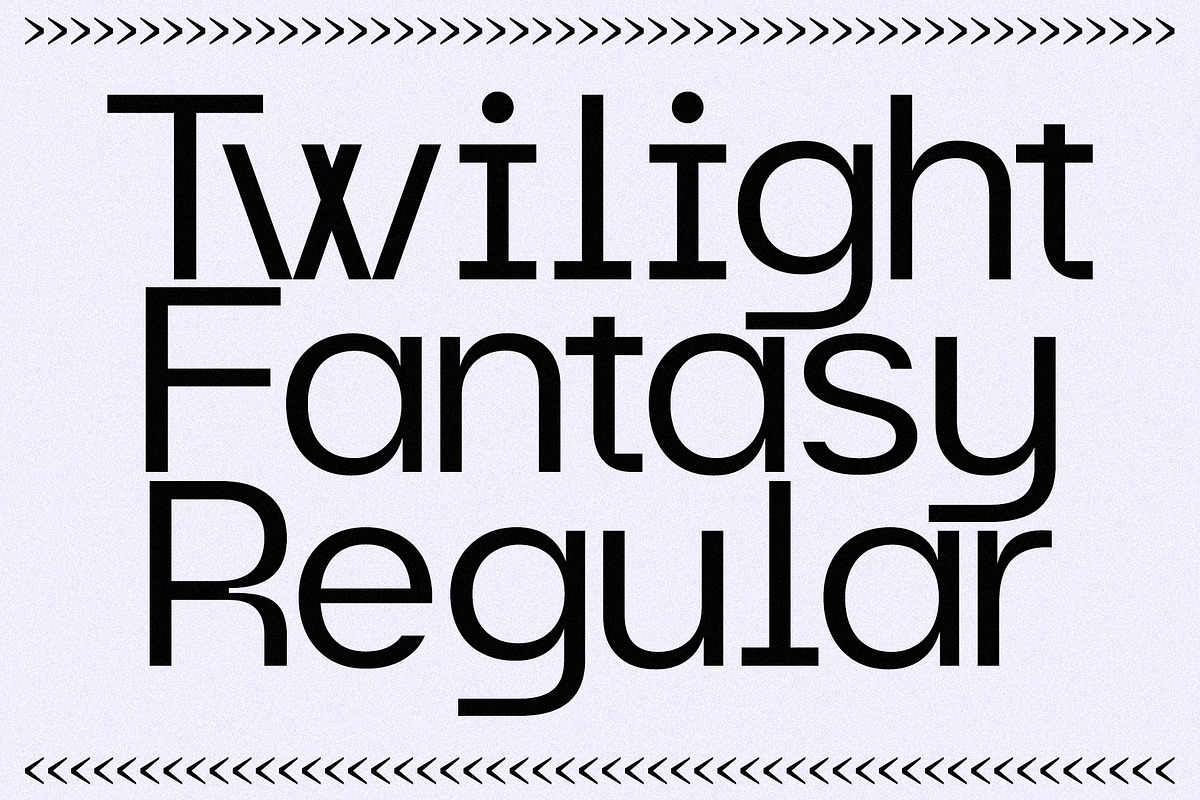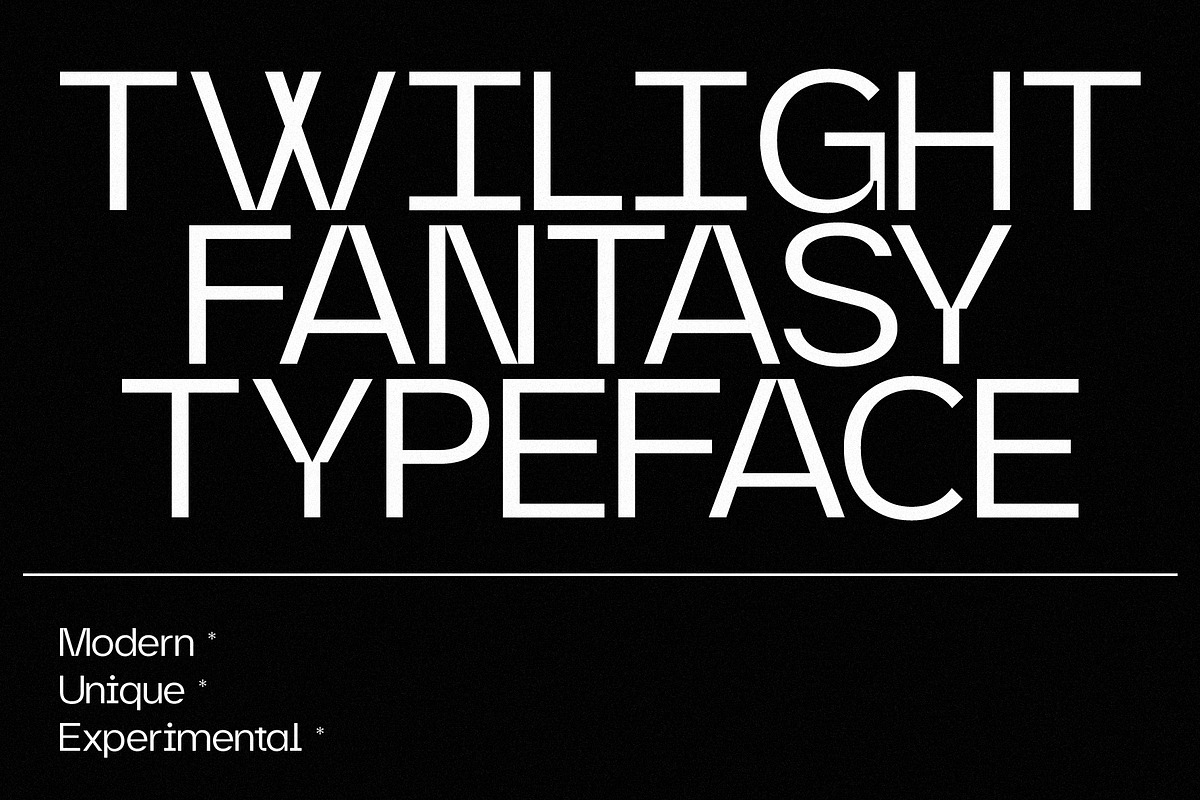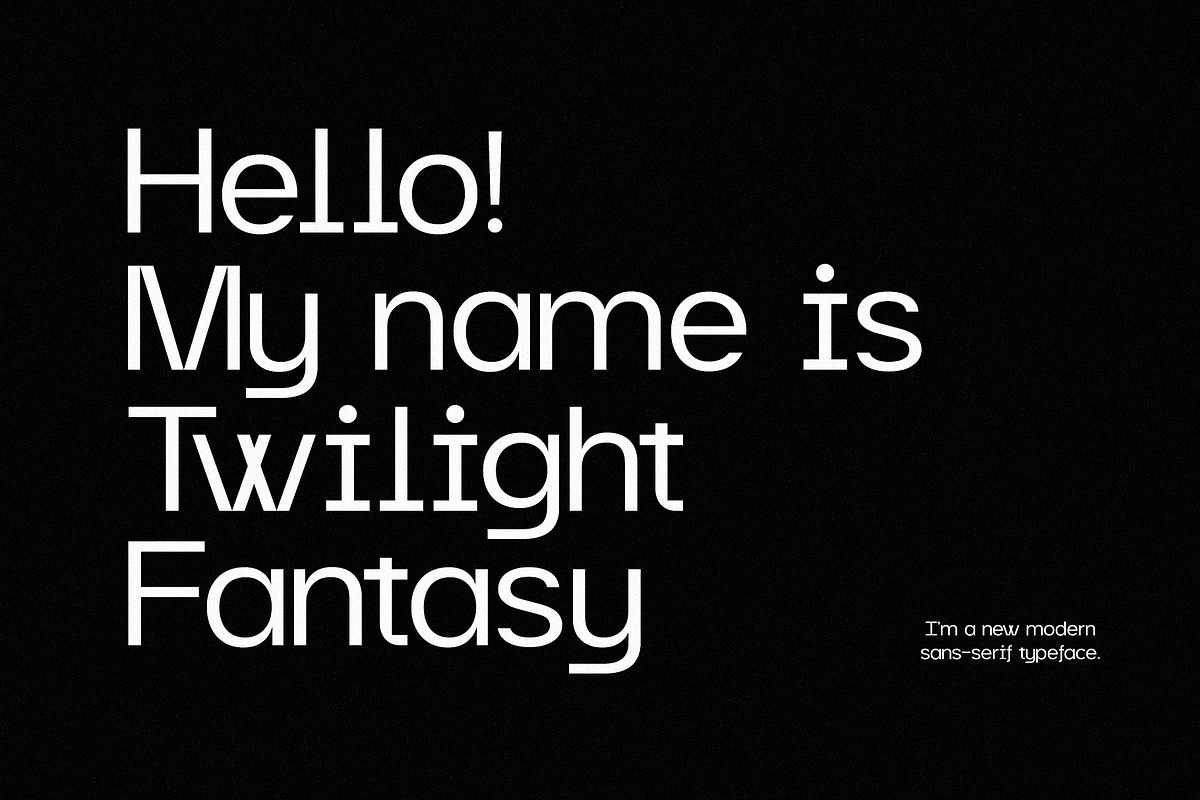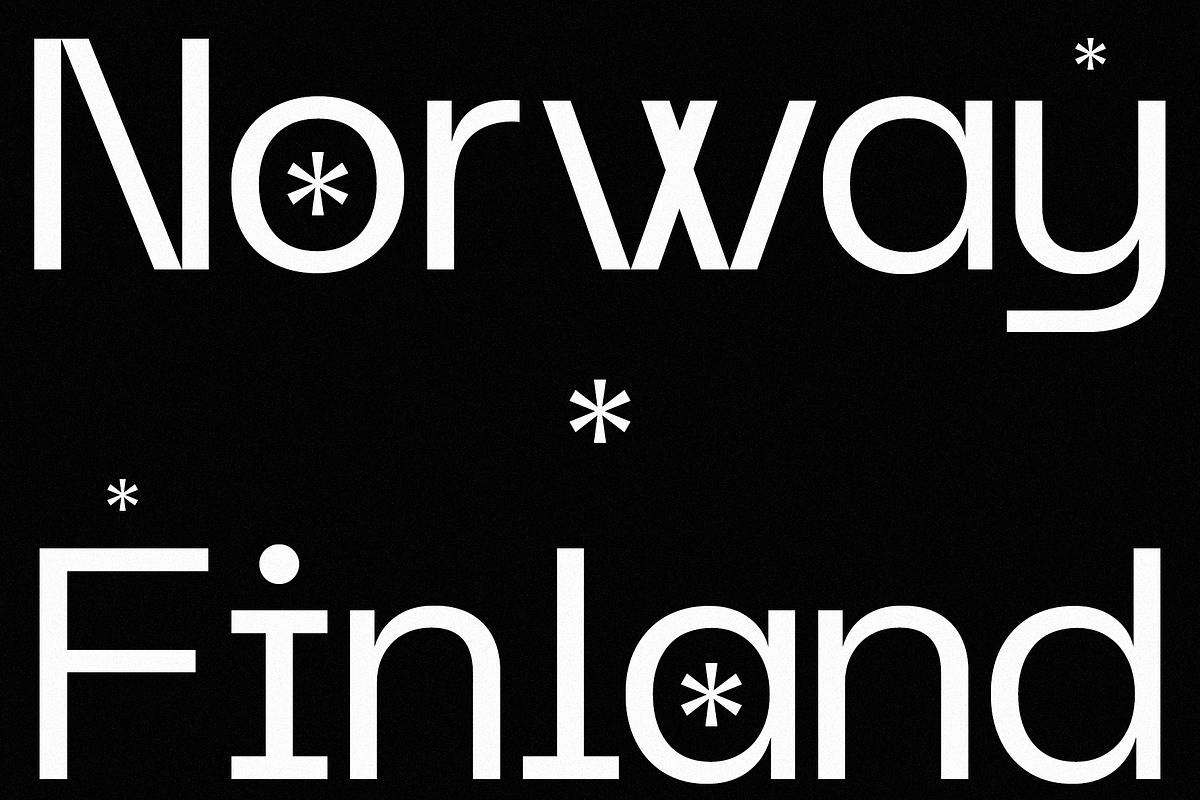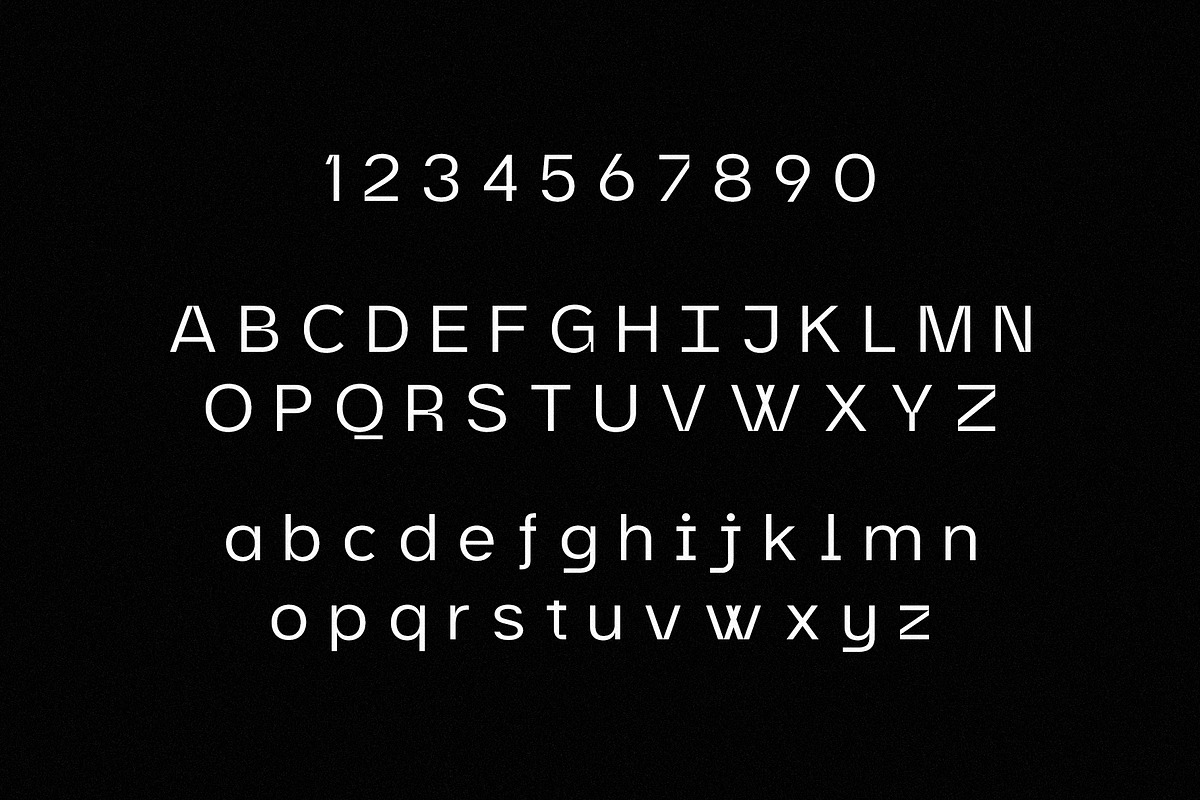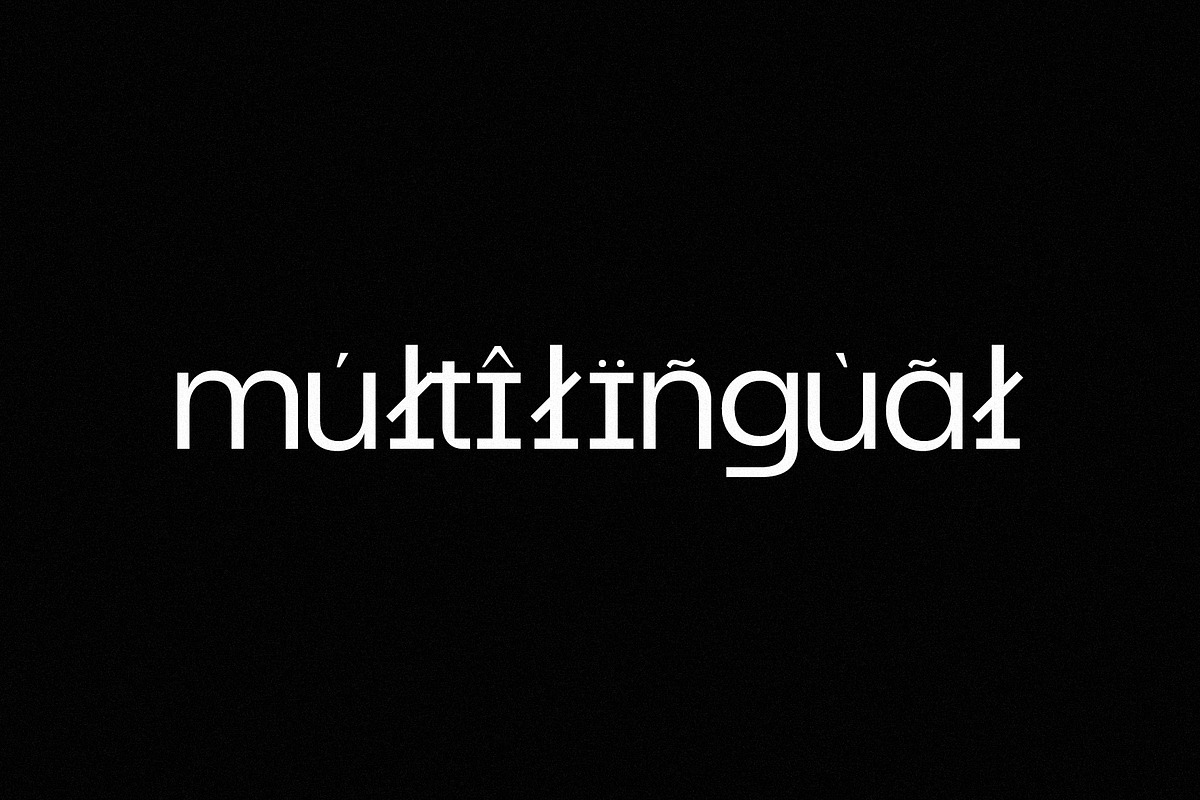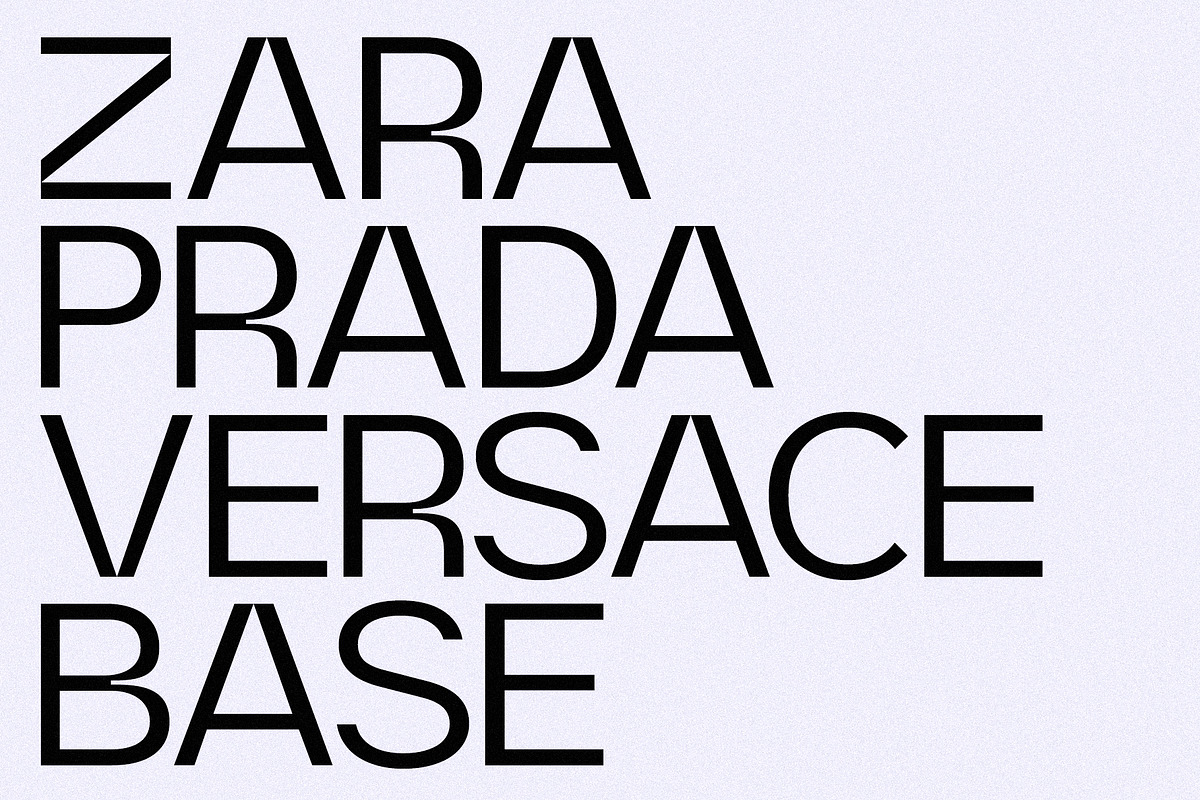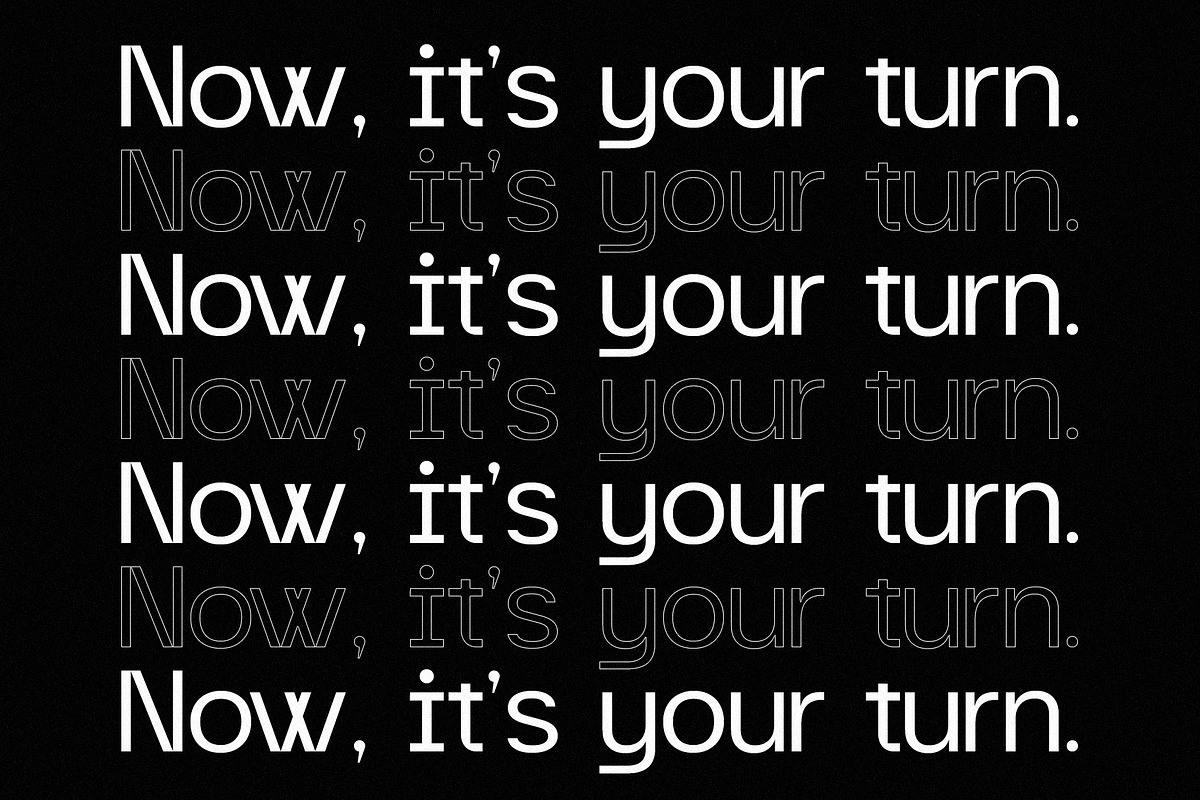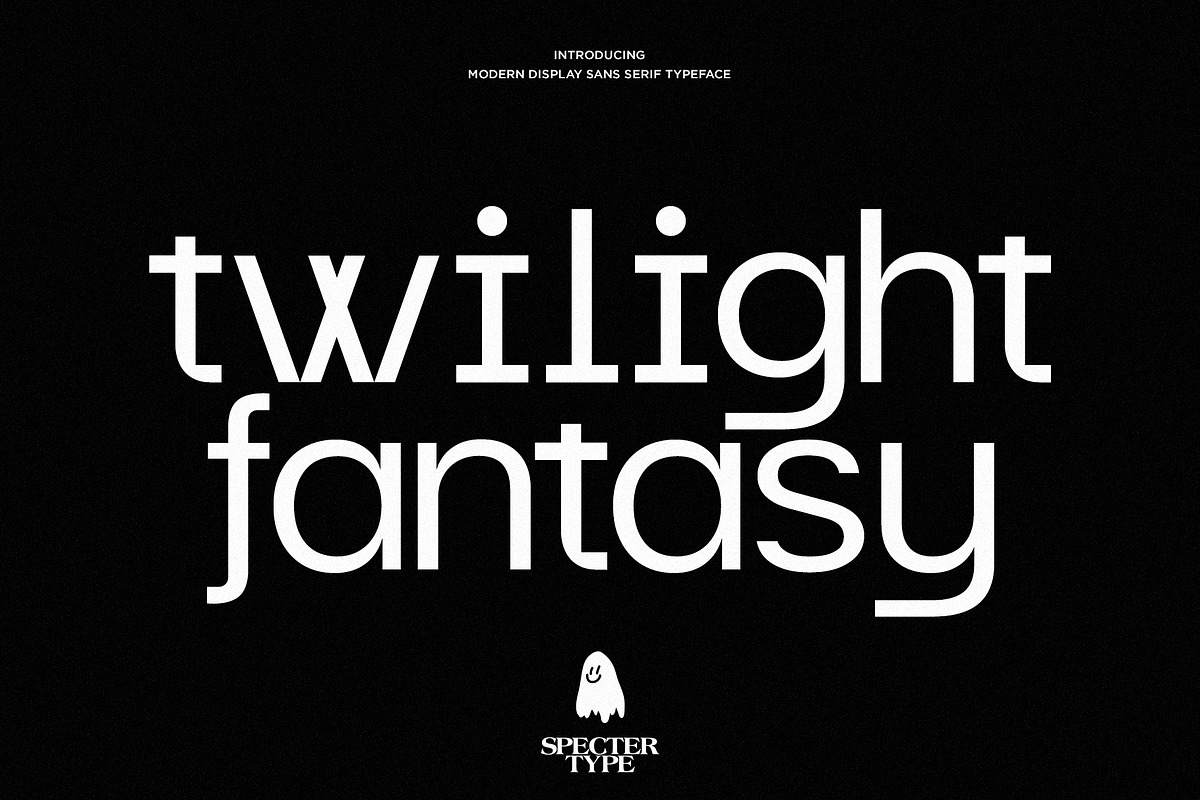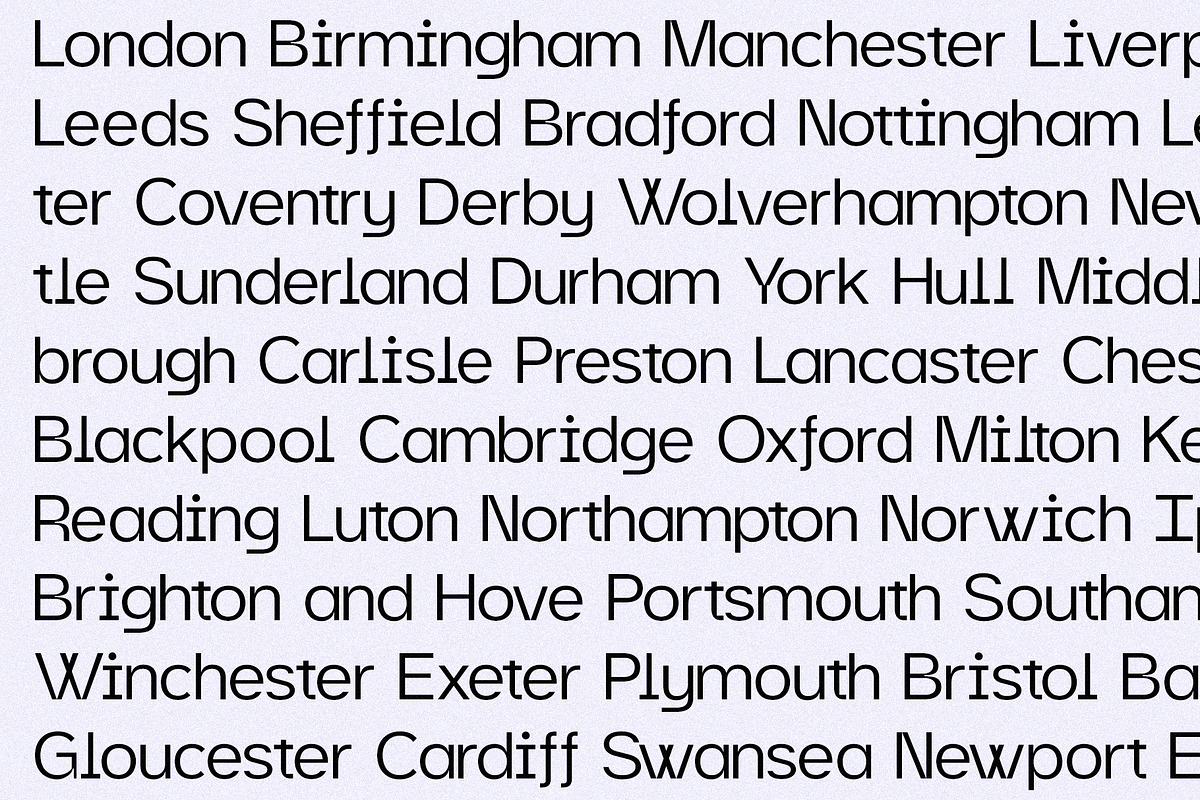
Twilight Fantasy - Unique Sans Serif
Twilight Fantasy - Unique Sans Serif is a modern typeface that blends clean structure. Designed to feel both futuristic and expressive. Its smooth curves and balanced geometry create a soft yet confident presence, making it perfect for branding, posters, editorial layouts, logotypes and digital designs. Twilight Fantasy stands out with subtle character details that add personality without sacrificing readability. Whether used in bold headlines or refined body text, it delivers a distinctive visual voice that feels elegant, creative, and versatile. This sans serif font is ideal for designers who want something unique but not overpowering - something that feels fresh, atmospheric, and stylish.
Twilight Fantasy features uppercase & lowercase letters, numbers & symbols, multilingual support, over 300+ glyphs.